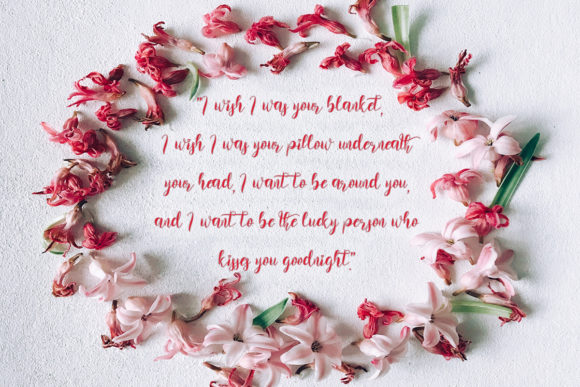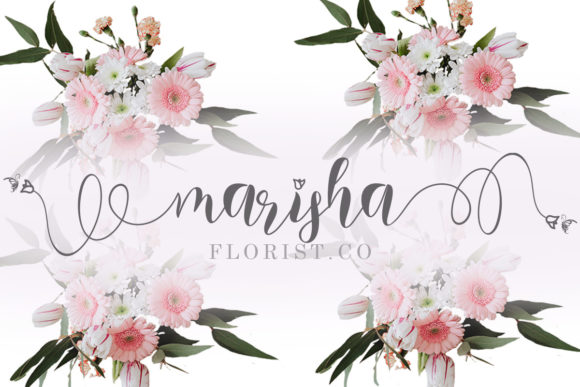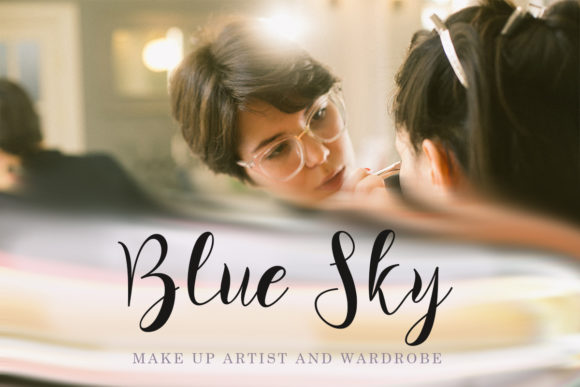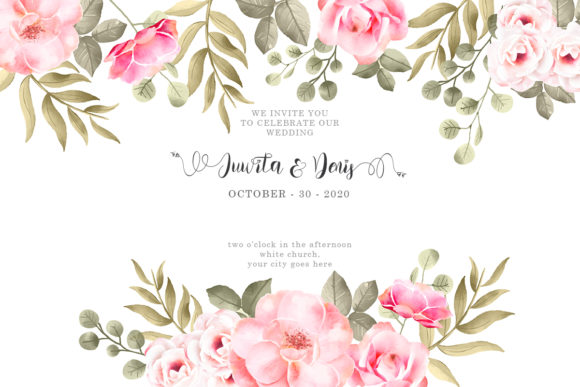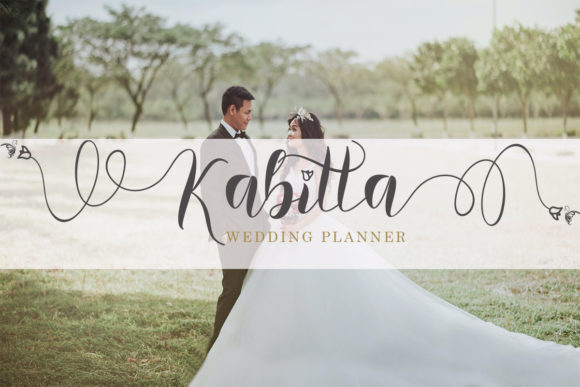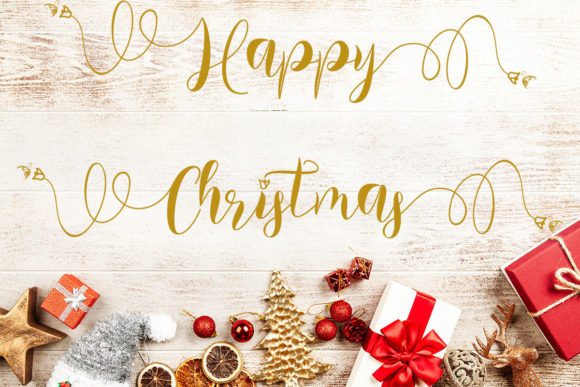
Introducing Balissha Font: The Ultimate Romantic Calligraphy Typeface
Are you a designer or crafter looking for a font that exudes romance and sweetness? Look no further than Balissha Font, a beautiful calligraphy typeface that is sure to capture the hearts of your audience. With its unique and elegant characters that dance along the baseline, Balissha is the perfect choice for a wide range of design projects.
What is Balissha Font?
Balissha Font is a romantic and sweet calligraphy typeface that features characters that dance along the baseline, creating a sense of movement and fluidity. This beautiful font is designed to add a touch of elegance and sophistication to any design project, making it perfect for a variety of applications.
What Can I Use Balissha Font For?
Balissha Font is incredibly versatile and can be used for a wide range of design projects, including:
- Logos: Create a beautiful and elegant logo for your business or brand with Balissha Font.
- Wedding Invitations: Add a touch of romance and sophistication to your wedding invitations with this stunning font.
- Headings: Use Balissha Font to create eye-catching headings for your website, blog, or marketing materials.
- T-Shirts: Design beautiful and unique t-shirts with Balissha Font that are sure to turn heads.
- Letterhead: Create elegant letterhead for your business or personal correspondence.
- Signage: Use Balissha Font to create eye-catching signage for your business or event.
- Labels: Design beautiful and elegant labels for your products or gifts.
- News: Use Balissha Font to create engaging and easy-to-read news articles or blog posts.
- Posters: Create stunning posters with Balissha Font that are sure to grab attention.
- Badges: Design beautiful and elegant badges for your business or event.
What Makes Balissha Font Special?
Balissha Font is PUA encoded, which means that you can access all of the glyphs and swashes with ease. This makes it easy to customize your design and add your own personal touch. With Balissha Font, you can:
- Access a wide range of glyphs and swashes to add variety to your design.
- Easily customize your design to fit your brand or style.
- Create unique and eye-catching designs that stand out from the crowd.
Why Should I Choose Balissha Font?
There are many reasons why you should choose Balissha Font for your design projects. Here are just a few:
- Unique and elegant design: Balissha Font features a unique and elegant design that is sure to capture the hearts of your audience.
- Versatility: Balissha Font can be used for a wide range of design projects, making it a great addition to any designer’s toolkit.